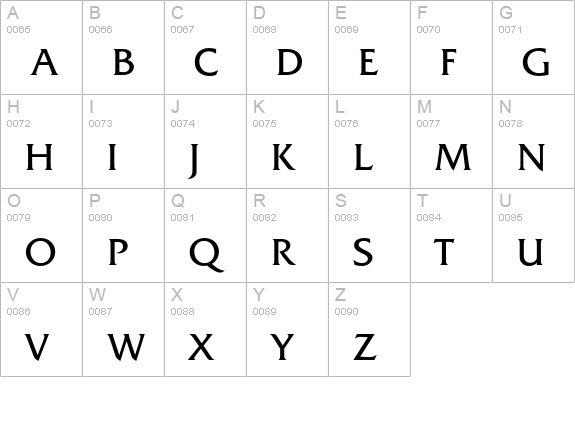
Friz Quadrata font is a classic and timeless typeface that exudes elegance and sophistication. Its sharp edges and geometric shapes give it a strong and authoritative presence, making it ideal for headlines, logos, and other design projects that require a bold statement. The balance between its sturdy serifs and clean lines creates a harmonious and balanced look that is both eye-catching and easy to read. This versatile font is suitable for a wide range of applications, from print media to digital designs. Whether you are creating a sleek corporate identity or designing a stylish invitation, Friz Quadrata font will add a touch of refinement to your project. Best of all, Friz Quadrata font is available for free download at FontsMarket.com. Now you can elevate your designs with this sophisticated typeface without breaking the bank. Download Friz Quadrata font today and add a touch of class to your next design project.